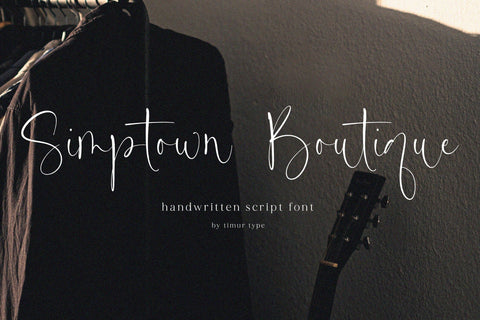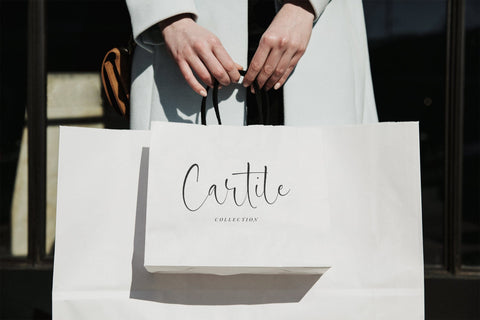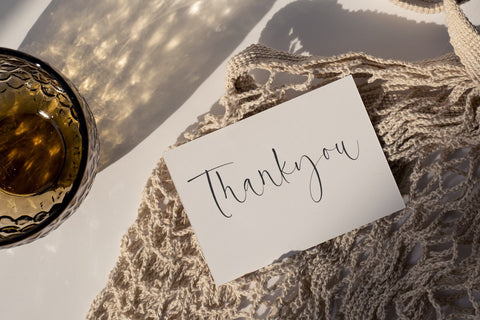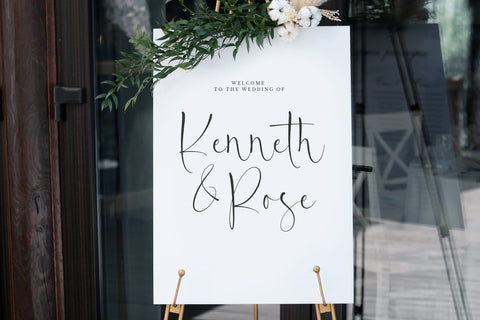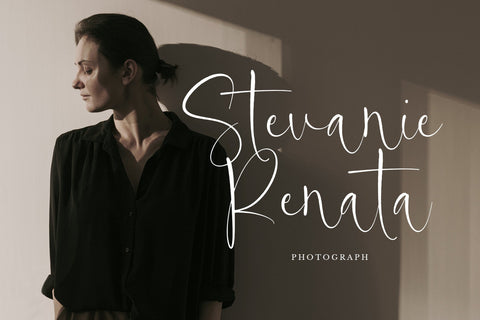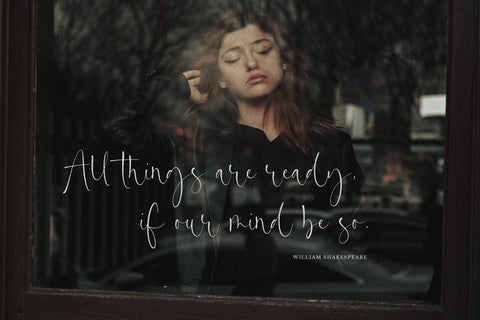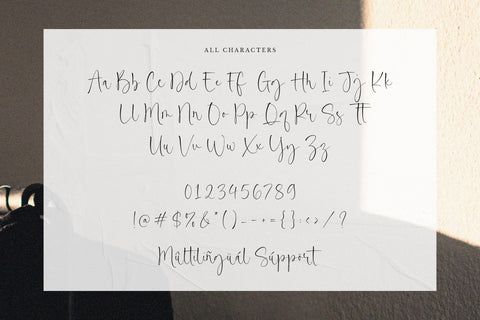
Simptown Boutique - A Handwritten Script font
Introducing by Timur type
Proudly Present, Jasmine Serenity
Jasmine Serenity A Handwritten Script Font , which was created with great care and specially created for you
Jasmine Serenity is perfect for product packaging, branding project, megazine, social media, wedding, or just used to express words above the background.
– multilingual support.